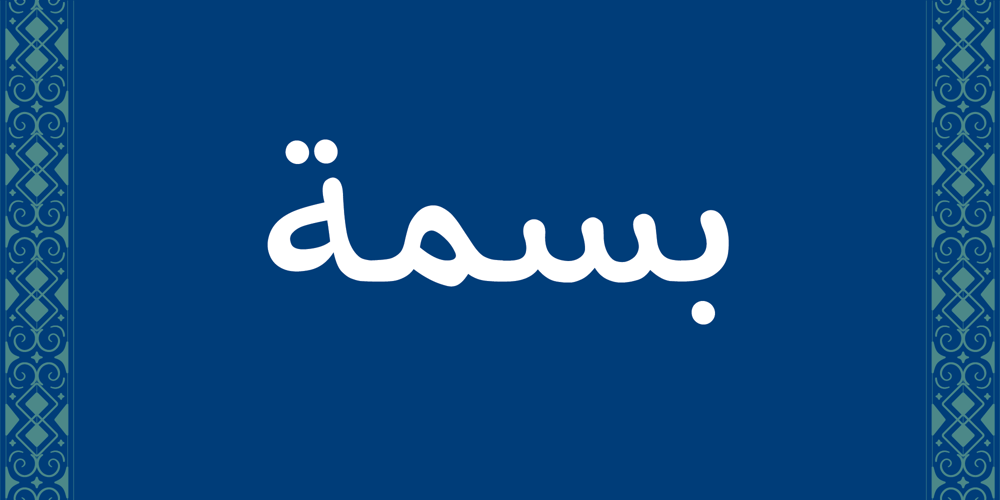
Basma Font Family was designed by A Al-Rikabi and published by Diwan Software. Basma contains 1 styles and family package options. Basma is an Arabic word for a ‘smile’ and that is reflected in the font’s nice and smooth curves.